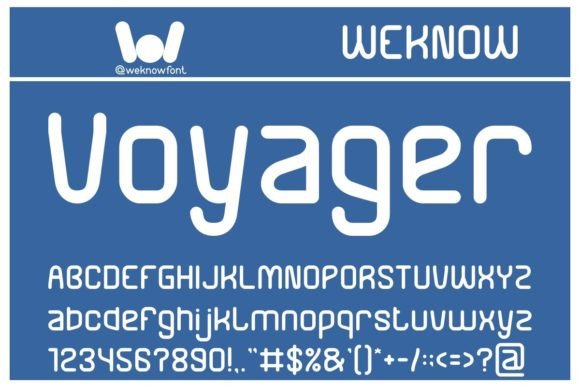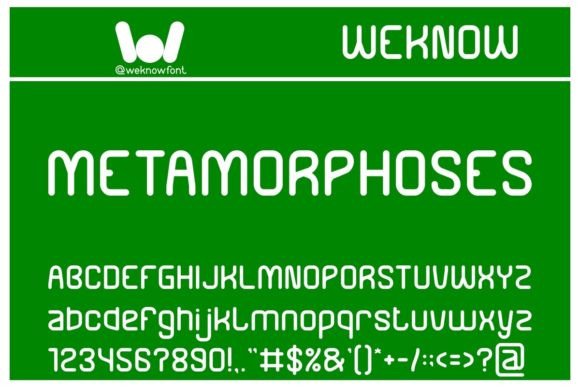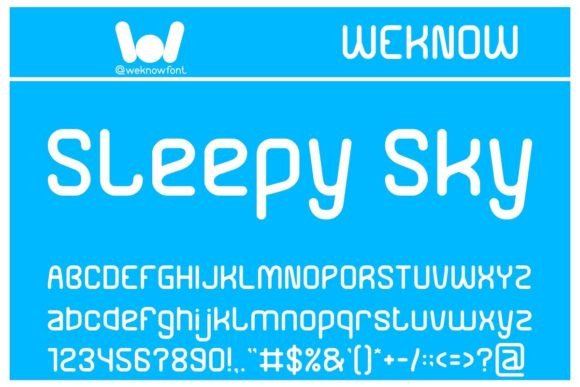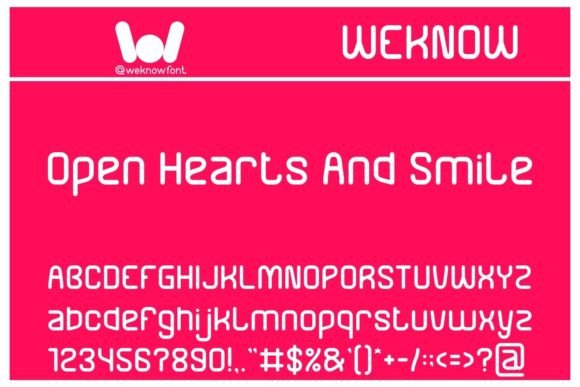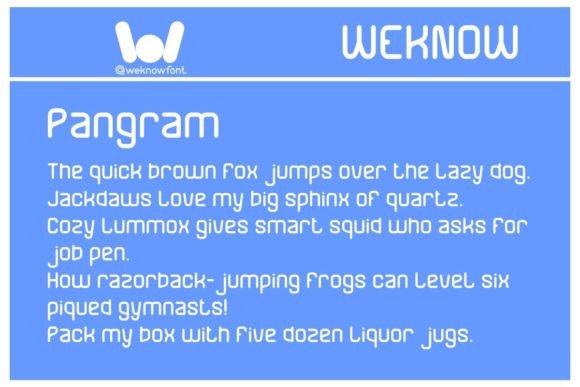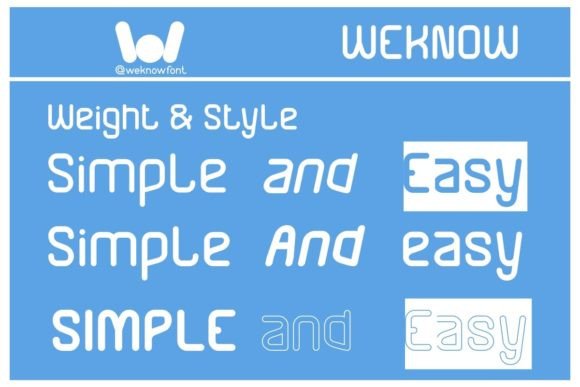
Introduction to Simple and Easy Font
As a designer, you know the thrill of hitting the perfect note with your creative project. It’s that moment when all the elements come together, and your vision shines through. For me, it was a late-night session working on a logo design for a client’s music label. I was searching for the perfect font to give it that extra edge, and that’s when I stumbled upon the Simple and Easy Font. Its clean lines, modern feel, and versatility made it an instant favorite.
The Simple and Easy Font is more than just a font – it’s a design resource that can elevate your creative projects. With its high-quality design and transparent background, it’s perfect for logos, logotypes, headlines, and even social media graphics. Plus, it’s a free download, making it an accessible addition to any designer’s toolkit.
Key Features of Simple and Easy Font
- High-quality design with a transparent background, ideal for creative projects
- Designed with a simple and easy-to-read style, perfect for body text and titles
Honest Review: Simple and Easy Font
I recently stumbled upon the Simple and Easy Font, and I must say it’s been a great addition to my design arsenal. One of the standout features is its transparent background, which makes it super easy to use in creative projects.
When it comes to quality, this font truly delivers. The characters are crisp, clean, and well-designed, making it perfect for high-quality print and digital applications.
- ✨ High-quality characters and design
- ⚠️ Limited character set, which may not be suitable for all languages
- ⚠️ Some users may find the font too simple or generic for certain design projects
Overall, I’m really impressed with the Simple and Easy Font. It’s a great resource for designers who need a high-quality, easy-to-use font for their creative projects. I would definitely recommend it to anyone looking for a reliable and versatile font.
Tips for Getting the Most Out of Simple and Easy Font
To get the most out of the Simple and Easy Font, try the following:
- Combine the font with other design elements, such as images and shapes, to create a visually appealing design.
- Use the font in conjunction with a transparent background to create a clean and modern look.
The Simple and Easy Font is perfect for a wide range of applications, including:
- Business cards and brochures.
- Social media graphics and ads.
- Presentations and documents.
- Web design and development.